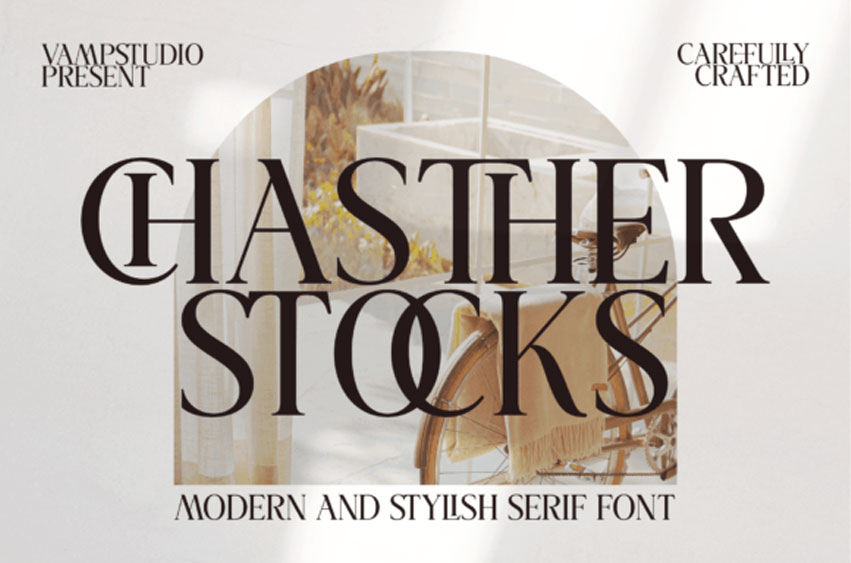
Chasther Stocks Font
Chasther Stocks Font is a stylish and elegant serif typeface. This font looks very simple, clean, and elegant. Specially designed by skilled hands makes this font is the perfect fit for all your big projects.
Chasther Stocks is perfect for branding projects, logos, wedding designs, social media posts, advertisements, product packaging, product designs, label, photography, watermark, invitation, stationery, and any projects that need luxury and modern taste.